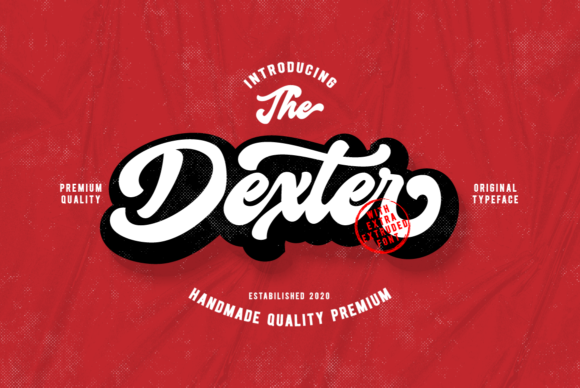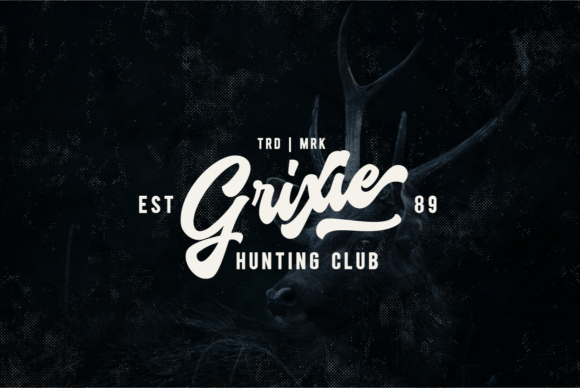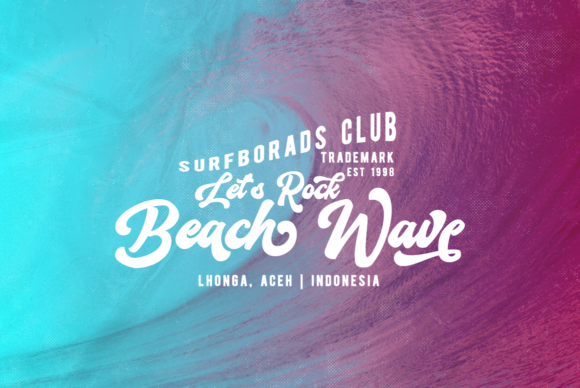
About Dexter Font
Dexter sounds like a captivating and versatile handwritten font with a vintage vibe, perfect for various creative projects. Its unique style opens up a world of possibilities, allowing you to infuse your designs with a touch of nostalgia and elegance. Let’s explore some exciting ways to use Dexter and create stunning visuals that leave a lasting impression:
1. Vintage Wedding Invitations: Design elegant and romantic wedding invitations with Dexter’s flowing and vintage-inspired lettering, setting the tone for a timeless celebration.
2. Stationery Sets: Create beautiful stationery sets featuring Dexter’s graceful script for personalized notes, letterheads, and envelopes.
3. Social Media Graphics: Utilize Dexter’s versatile style to craft eye-catching and nostalgic social media posts, perfect for capturing your audience’s attention.
4. Art Prints: Design vintage-inspired art prints using Dexter’s flowing script, adding a touch of elegance to home decor.
5. Restaurant Menus: Use Dexter’s vintage vibe to design elegant and stylish restaurant menus, perfect for showcasing your culinary offerings.
6. Elegant Branding: Apply Dexter in branding materials for businesses seeking an elegant and vintage-inspired identity.
7. Vintage Logos: Design timeless and nostalgic logos using Dexter’s flowing lettering, ideal for brands that want to evoke a sense of heritage.
8. Book Covers: Create book covers with Dexter’s vintage vibe, suitable for romance, historical fiction, or any genre that benefits from an elegant touch.
9. Greeting Cards: Use Dexter to design charming and sentimental greeting cards for special occasions or heartfelt messages.
10. Vintage Posters: Design classic and elegant posters using Dexter’s flowing script, ideal for promoting vintage-themed events or products.
11. Handcrafted Signage: Apply Dexter to create elegant and inviting handcrafted signage for shops, cafes, or special events.
12. Photo Overlays: Use Dexter’s vintage style as a photo overlay to add a touch of nostalgia to your images or social media visuals.
13. Nostalgic Packaging: Design vintage-inspired packaging for products, adding a sense of heritage and charm.
14. Vintage-Themed Websites: Apply Dexter in website headings and banners to create a vintage and timeless online presence.
15. Handwritten Quotes: Create visually appealing graphics featuring inspiring and nostalgic quotes using Dexter’s elegant lettering.
16. Vintage Event Invitations: Use Dexter’s vintage vibe to design invitations for themed parties, anniversary celebrations, or vintage-inspired events.
17. Classic Labels: Design classic labels for wine bottles, candles, or gourmet products with Dexter’s flowing script.
18. Handwritten Journaling: Use Dexter’s vintage-inspired style for handwritten journaling, adding a personal and nostalgic touch to your diaries.
19. Vintage Product Mockups: Apply Dexter to vintage-themed product mockups to create stunning visuals for presentations or online shops.
20. Vintage-Themed Packaging: Design packaging for vintage-inspired products with Dexter’s flowing and nostalgic lettering.
In summary, Dexter is a flowing handwritten font that brings a vintage vibe to your creative projects. Whether it’s designing wedding invitations, crafting social media graphics, or creating vintage-themed branding, Dexter’s versatile style will elevate your designs to new heights. Embrace the elegance and nostalgia of Dexter, and let it inspire you to create gorgeous visuals that leave a lasting impression on your audience. With Dexter, you have the perfect tool to infuse your designs with timeless charm and vintage allure, making every project a true work of art!